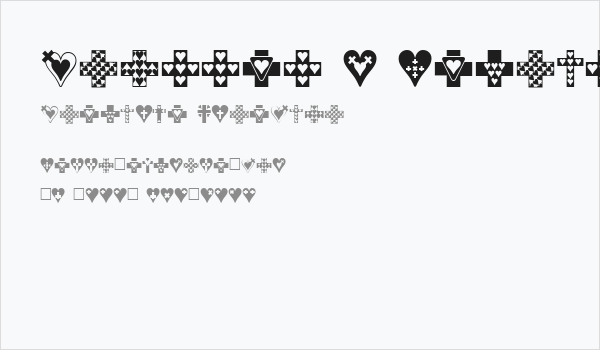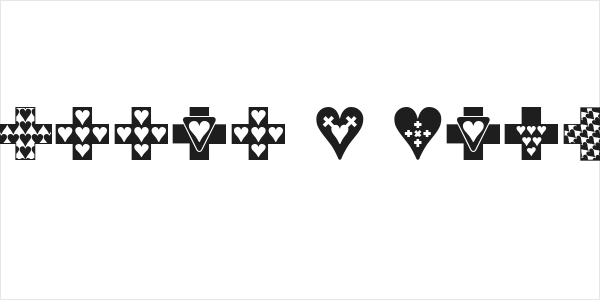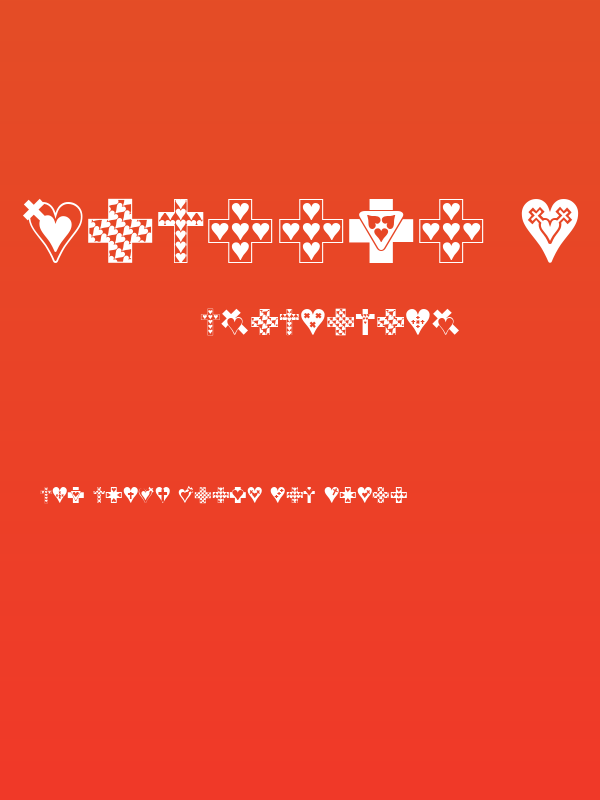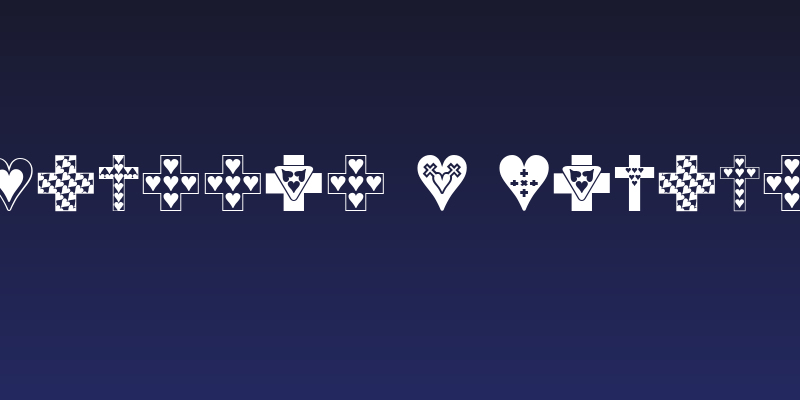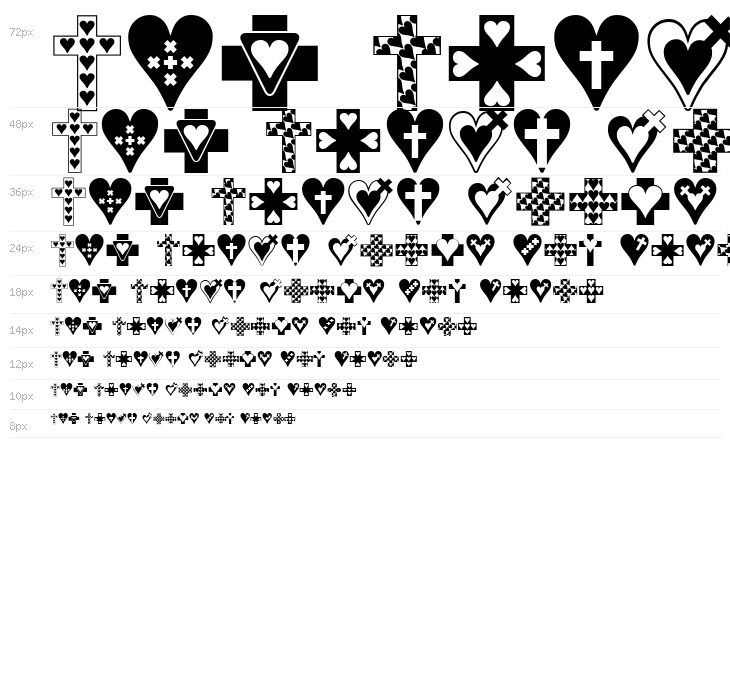
Crosses n Hearts Font
Crosses n Hearts Description
This design features a creative blend of crosses and hearts, forming a unique decorative pattern. The elements are bold and striking, with each character combining religious and romantic symbolism. The crosses are integrated with hearts in various styles, including solid, outlined, and patterned designs. The overall look is playful yet meaningful, making it suitable for projects that require a touch of whimsy and sentimentality. The characters are evenly spaced, ensuring clarity and visual appeal.
| Use Case | Logos, Decorative elements |
| Proposed Projects | Ideal for greeting cards, religious-themed decorations, or romantic event invitations. |